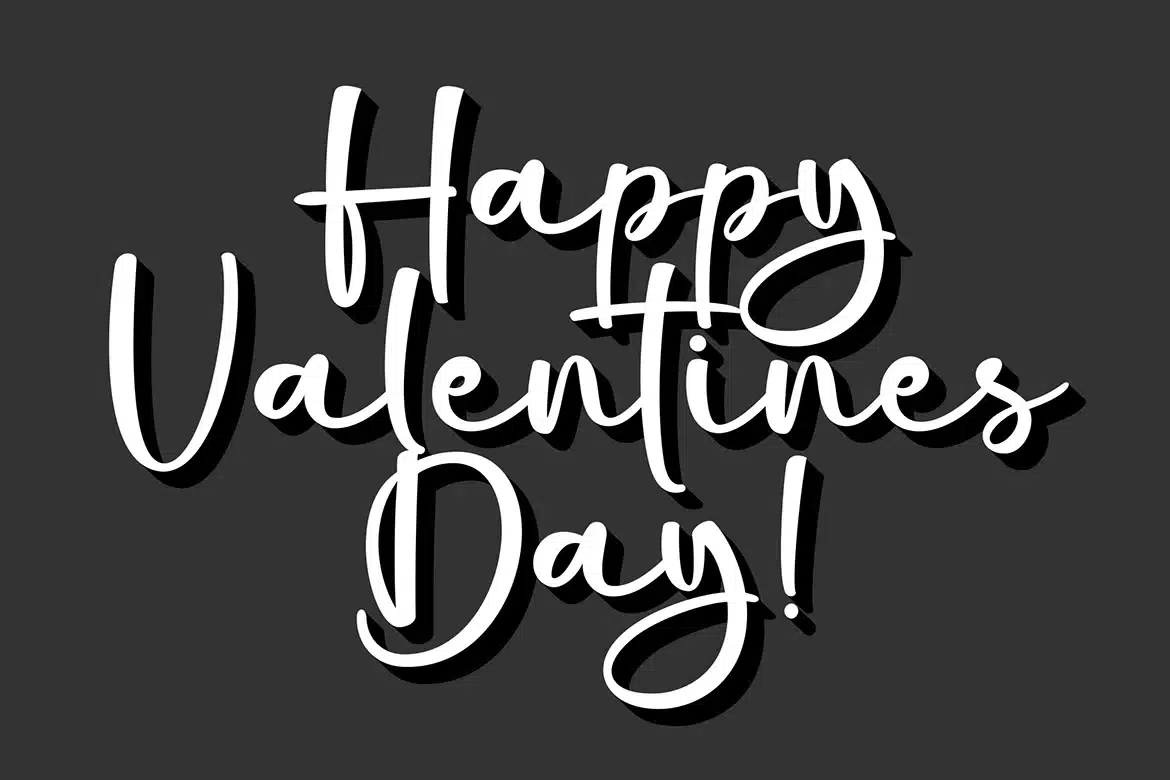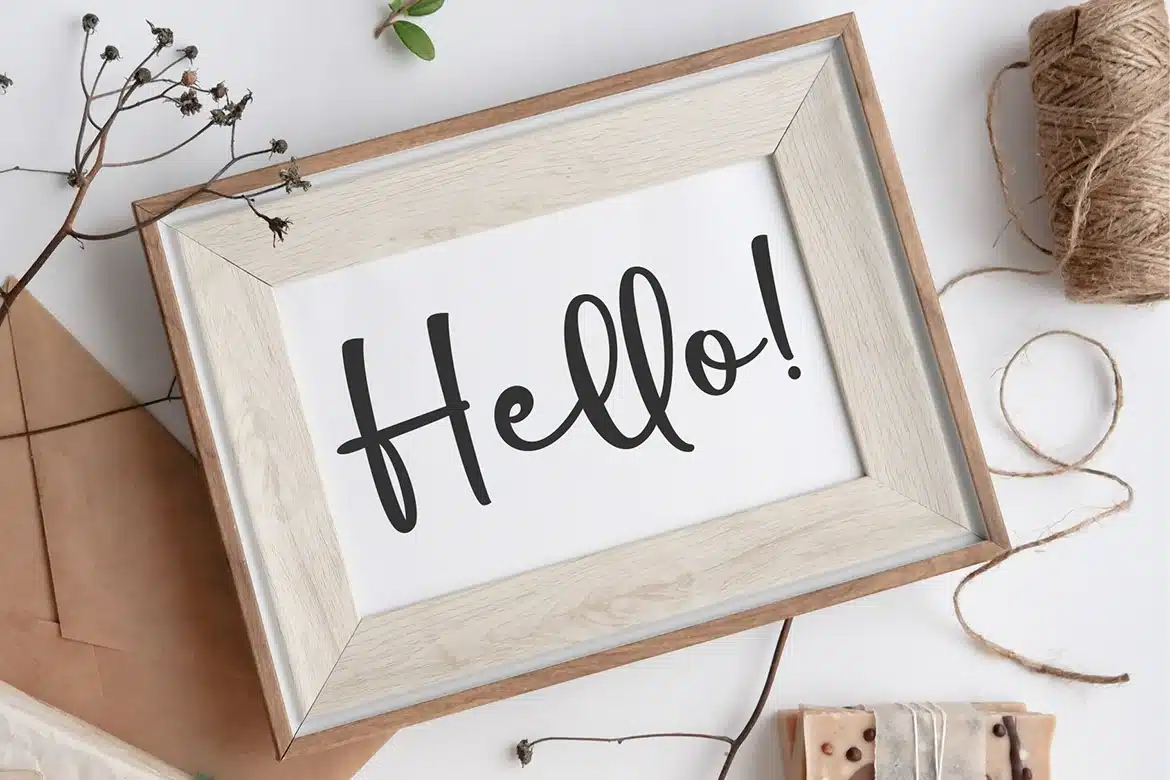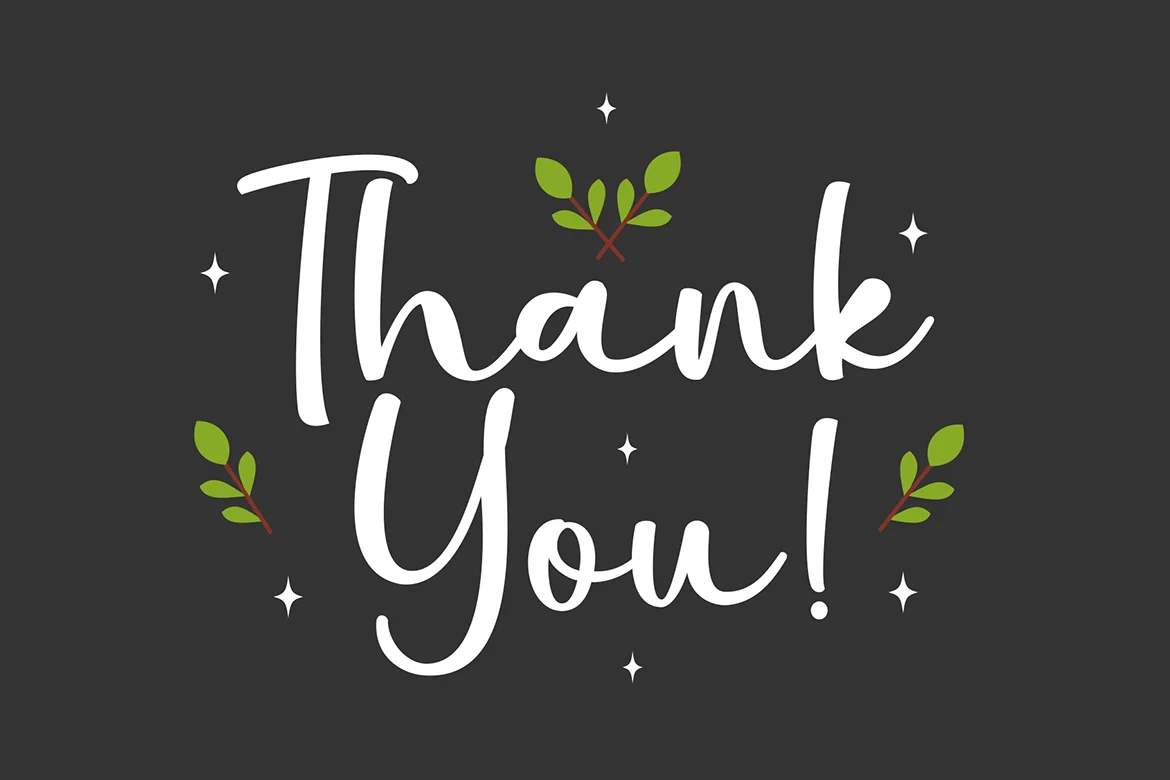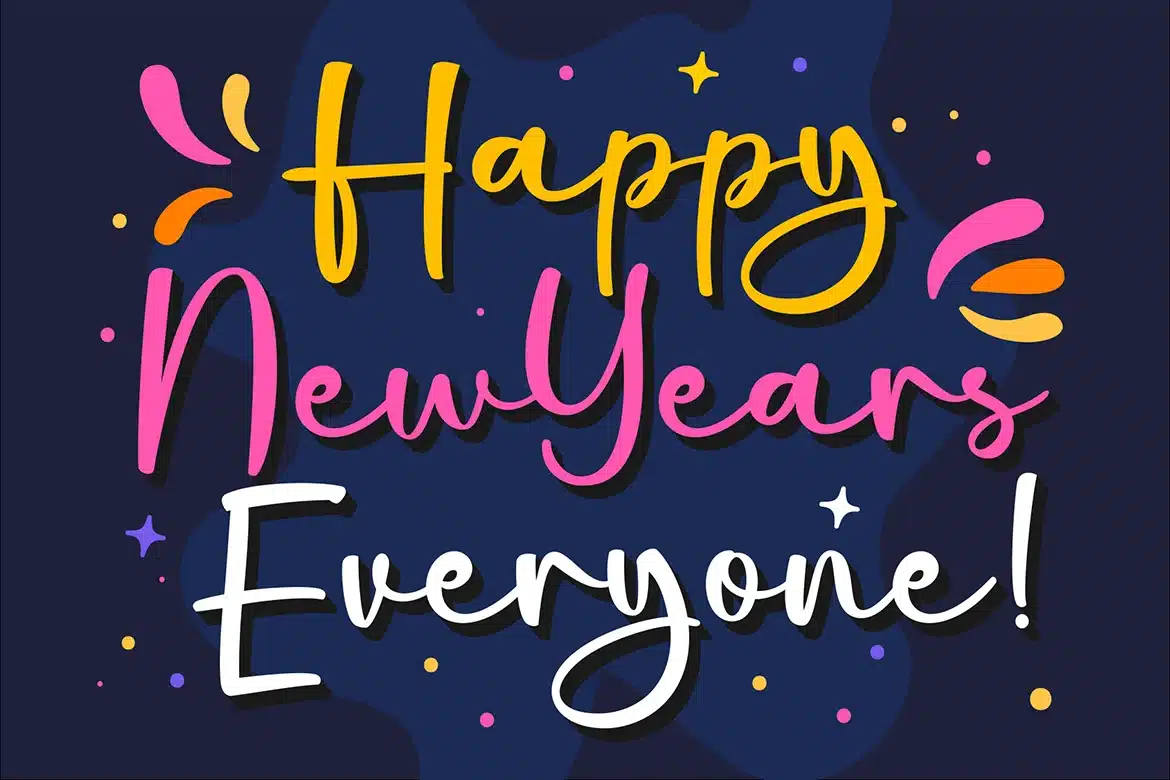
Magnolia Beauty – Beautiful Calligraphy Font
Magnolia Beauty is a modern and Beauty Calligraphy font.
It's perfect for branding, wedding invitations, photography, Neon Sign, bloggers, logos, greeting cards, Logo, Quotes and more.
Font Features :
- numeric & Multilingual support